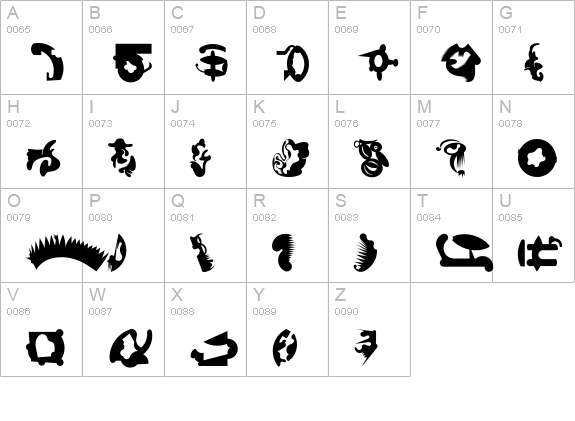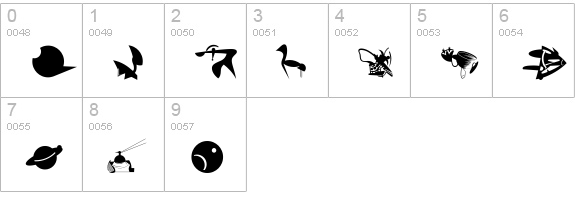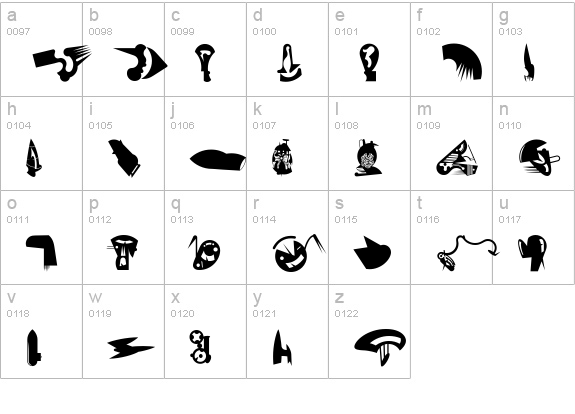
FellaParts Font Details
Introducing FellaParts font, a modern and stylish typeface that exudes sophistication and charm. This versatile font is perfect for a wide range of design projects, from branding to editorial design and everything in between. With its sleek lines and elegant curves, FellaParts adds a touch of class to any project. What sets FellaParts font apart is not only its stunning design but also the fact that it is available for free! Yes, you read that right - this beautiful font can be downloaded at no cost from FontsMarket.com. Whether you are a seasoned designer looking for a new addition to your font collection or a novice designer exploring different typefaces, FellaParts is sure to impress. Don't miss out on the opportunity to elevate your designs with FellaParts font. Download it for free today and add a touch of sophistication to your next project!